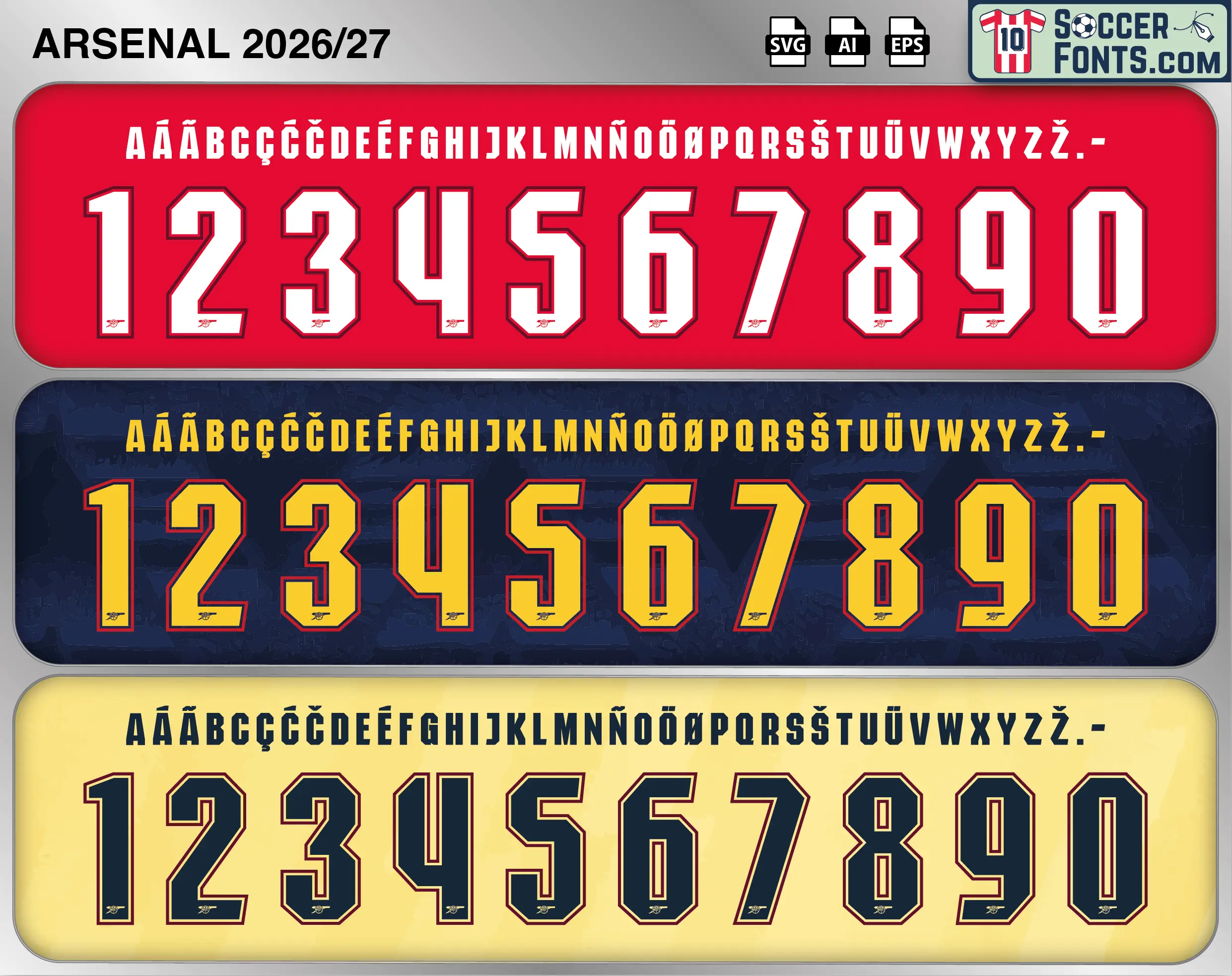
About Arsenal 2026-27 Font
Download Arsenal 2026-27 font, an editable soccer jersey lettering design in vector format inspired by the Arsenal kit style used during the 2026-27 football season. This football font artwork is prepared for football shirt recreations, custom jersey projects, football kit mockups and sports graphic design workflows.
Visual Identity of the Font Design :
The Arsenal 2026-27 lettering uses a tall, condensed uppercase alphabet paired with substantially heavier shirt numbers. The letters have straight vertical strokes, compact proportions and clipped diagonal corners, creating a narrow athletic construction that remains consistent across the three kit applications shown. The numbers use a bold, block-based structure with angular corners and squared internal spaces. A layered outline surrounds each numeral, producing strong separation from the shirt background while retaining the same underlying shape across the home, away and third versions. The home treatment combines white numbers with red and dark outlining, while the away version uses a yellow fill against navy with red and dark edge detailing. The third treatment reverses the visual weight with dark navy numbers bordered by lighter yellow and dark red accents. A small Arsenal cannon mark is positioned near the bottom of the numerals. The three color treatments allow the same Arsenal 2026-27 font system to work across contrasting kit palettes without changing its core letter and number construction.
Arsenal 2026-27 football shirt font showing alphabet letters and jersey numbers
Arsenal 2026-27 Font